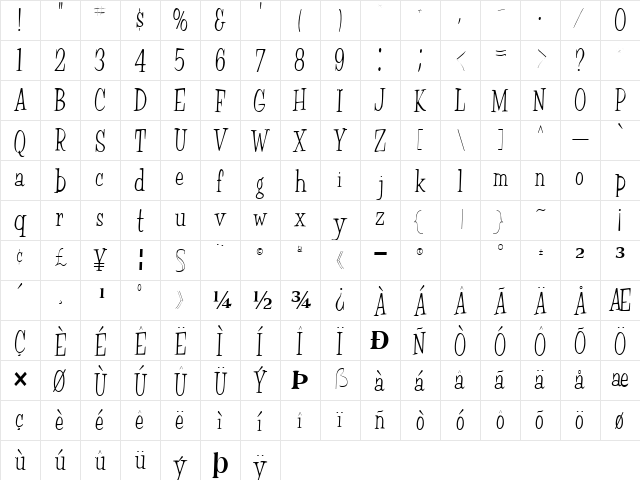
Countryside Normal
Design Context for Countryside Typeface
Countryside takes a measured approach to typography — its balanced proportions and neutral character make it a reliable workhorse for both digital and print work.